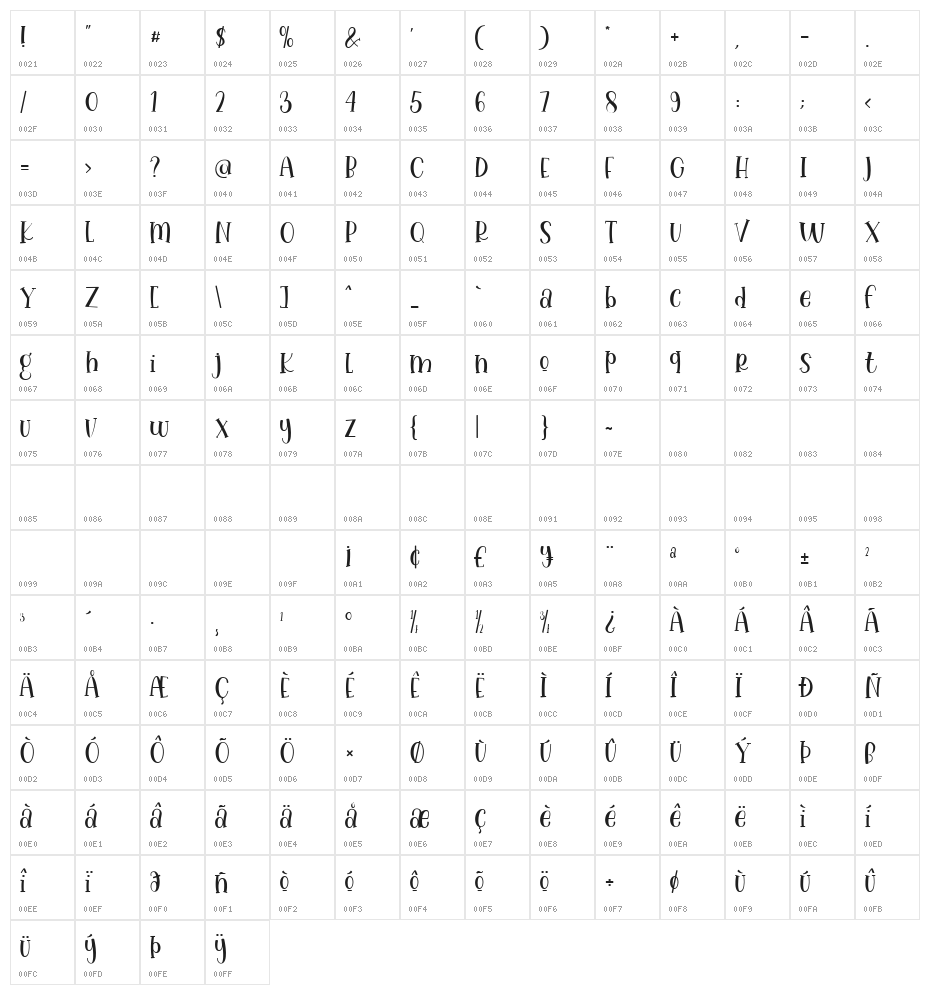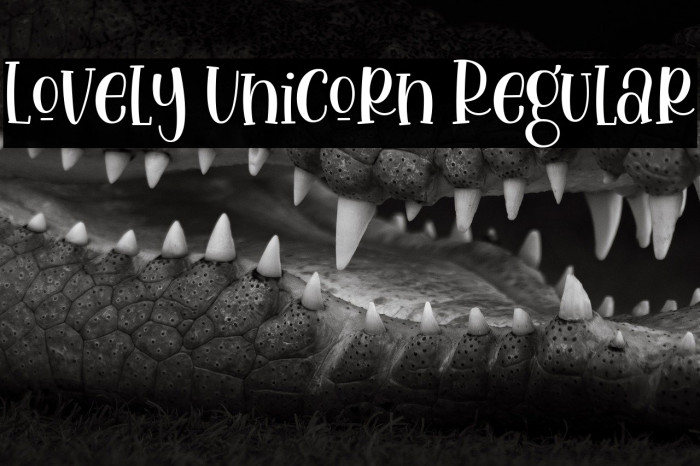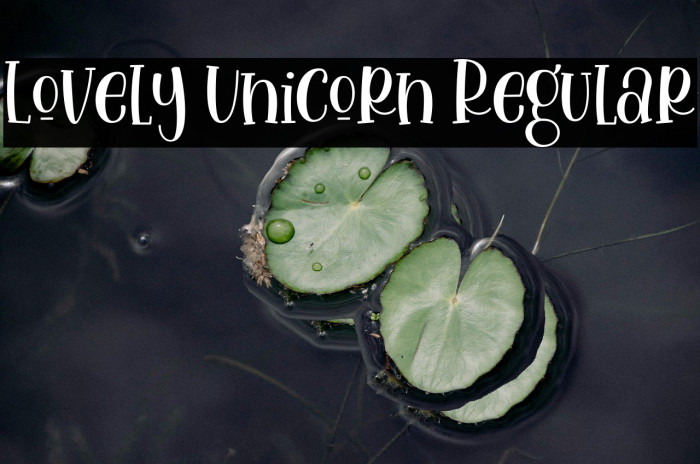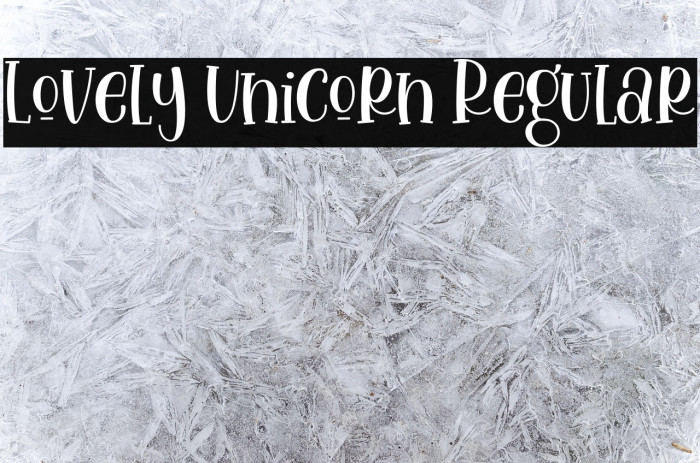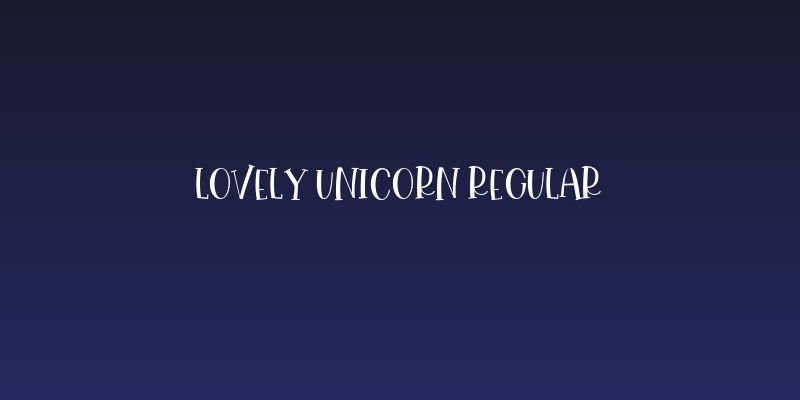
Lovely Unicorn Regular Font
Lovely Unicorn Regular Description
This whimsical and playful font features a unique blend of curves and angles, giving it a lively and dynamic appearance. The uppercase letters are bold and slightly condensed, with a distinctive flair that adds character to each glyph. Lowercase letters maintain a consistent style, with a charming and quirky twist that makes them stand out. The numerals are equally expressive, with a balanced design that complements the overall aesthetic. Special characters are creatively crafted, enhancing the font's versatility and appeal. This font is perfect for projects that require a touch of fun and creativity.
| Proposed Projects | Ideal for children's books, playful branding, greeting cards, and creative posters. |